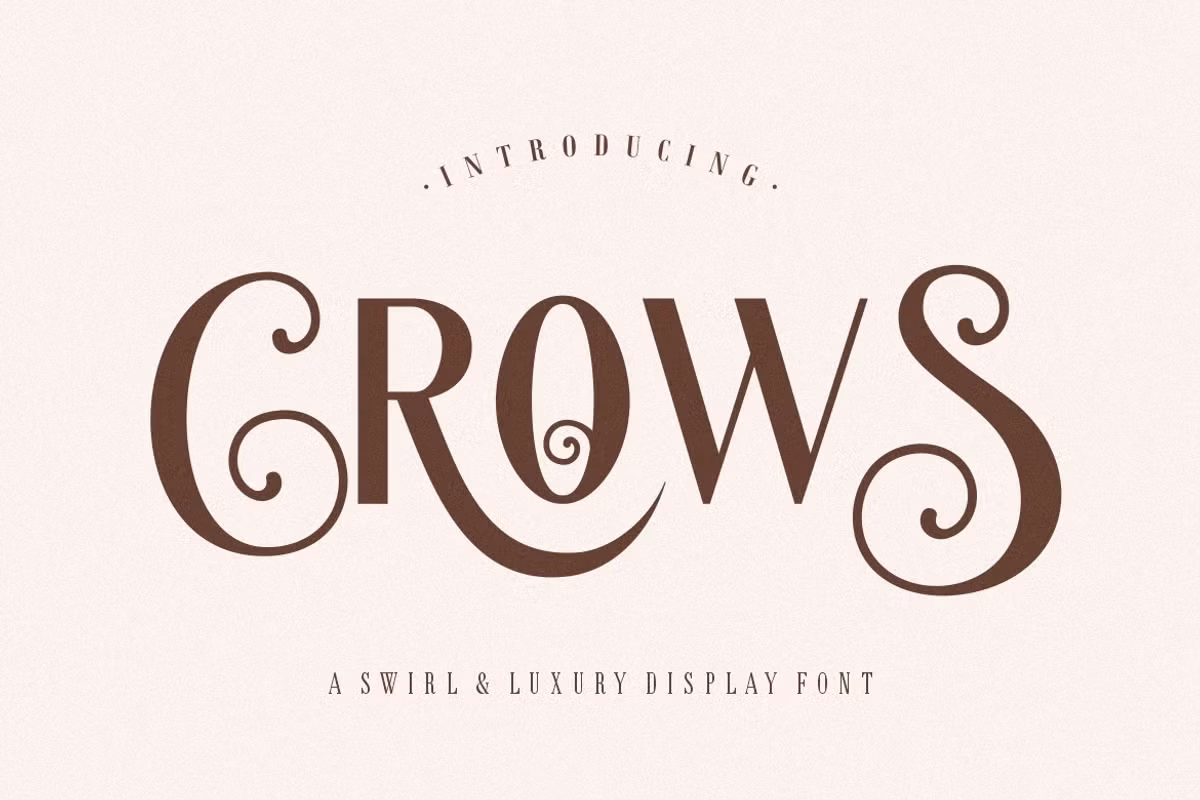
Crows - Ethnic Curly Sans Font Free Download is a unique and vibrant typeface that combines ethnic-inspired design with a modern curly sans-serif style. Perfect for branding, posters, logos, and creative projects, Crows adds a playful and bold touch to your designs. Its distinctive curves and cultural influence make it ideal for projects that need a touch of originality and flair.